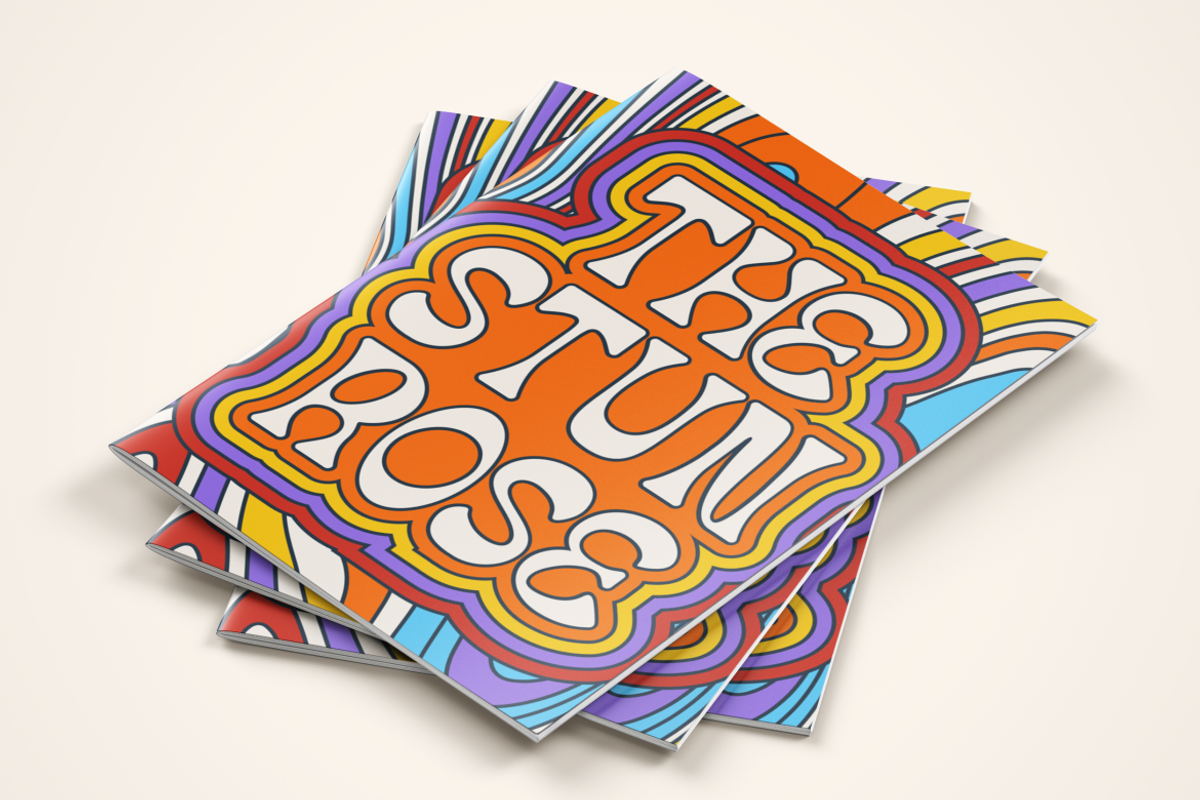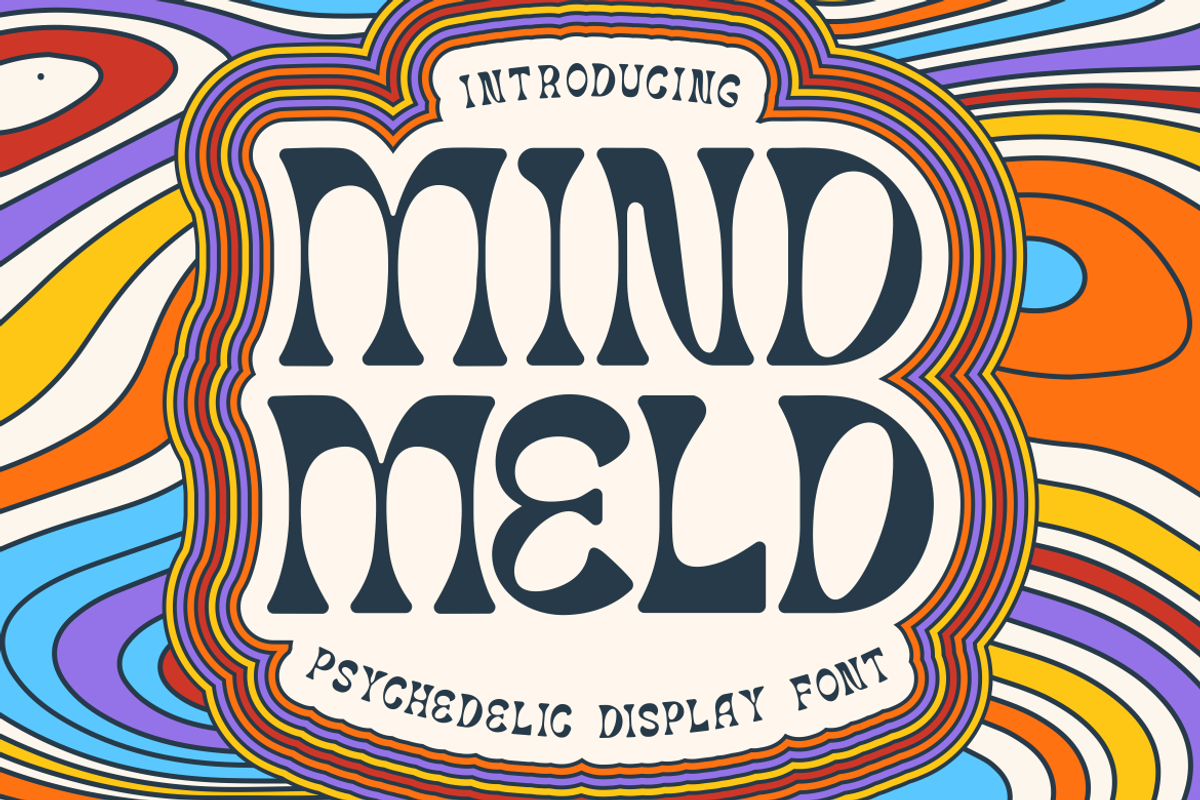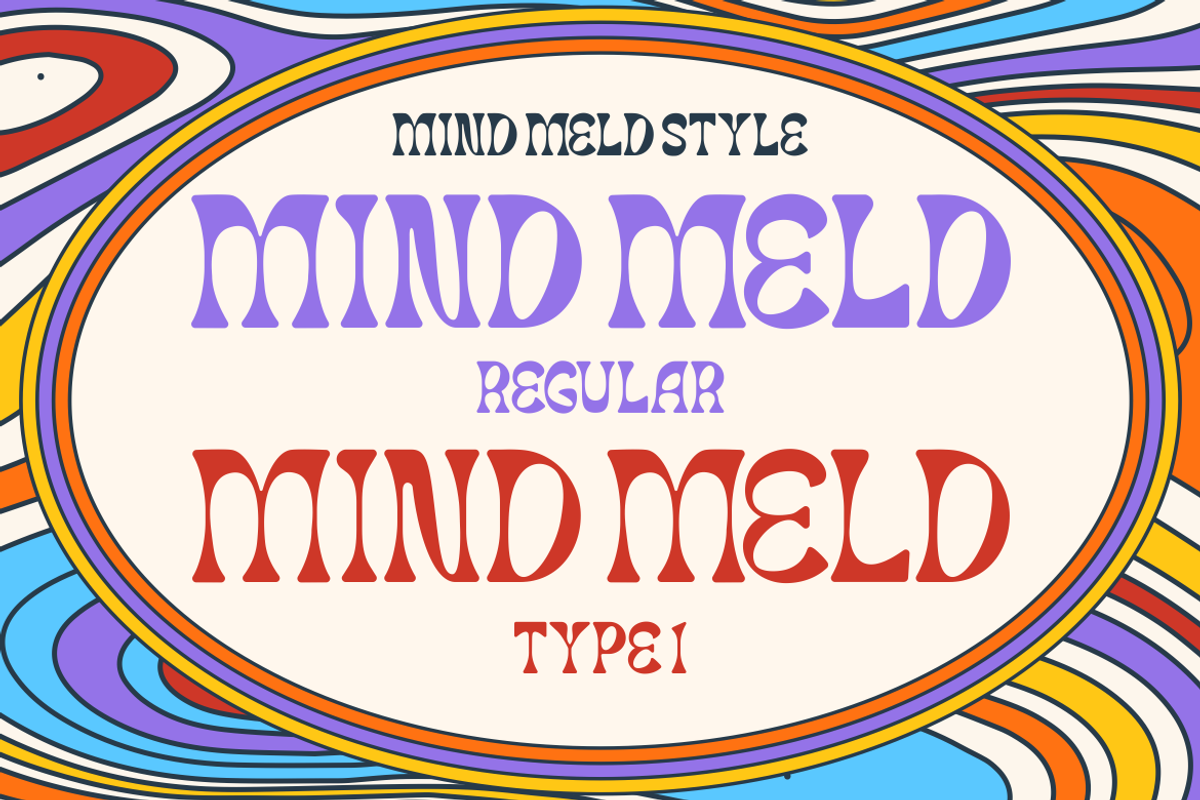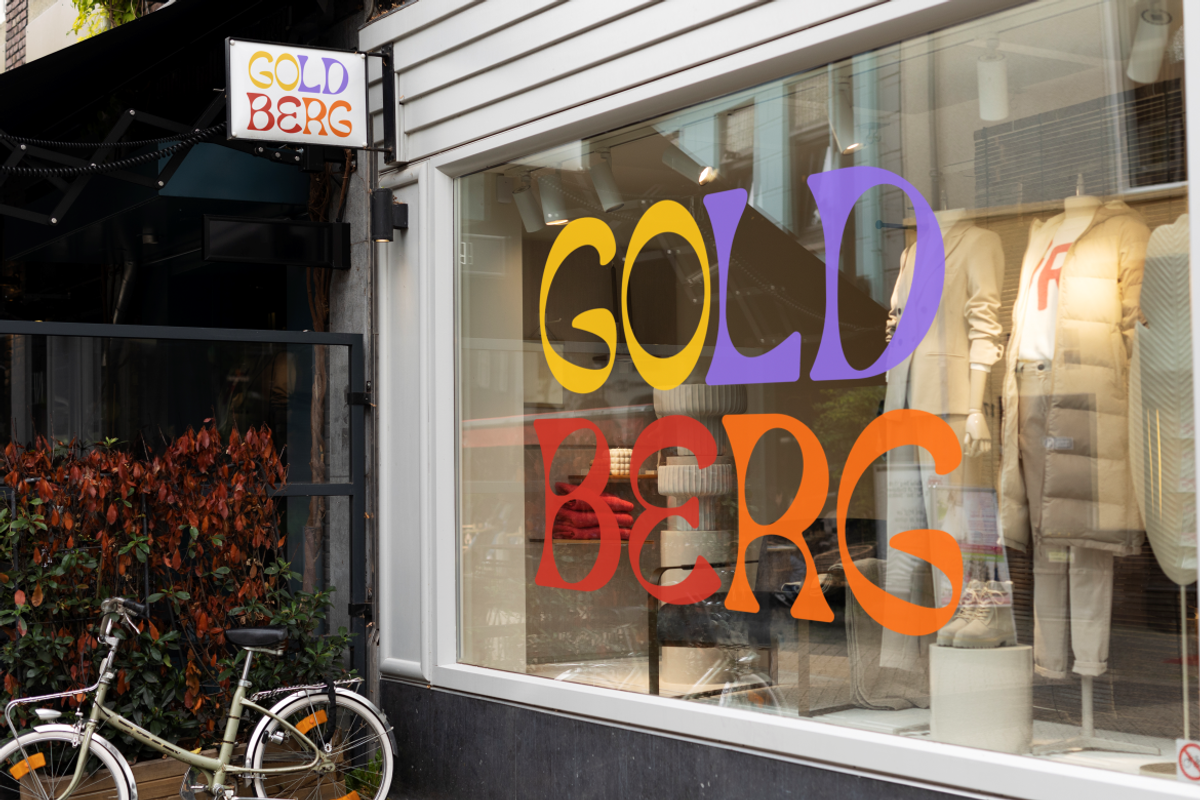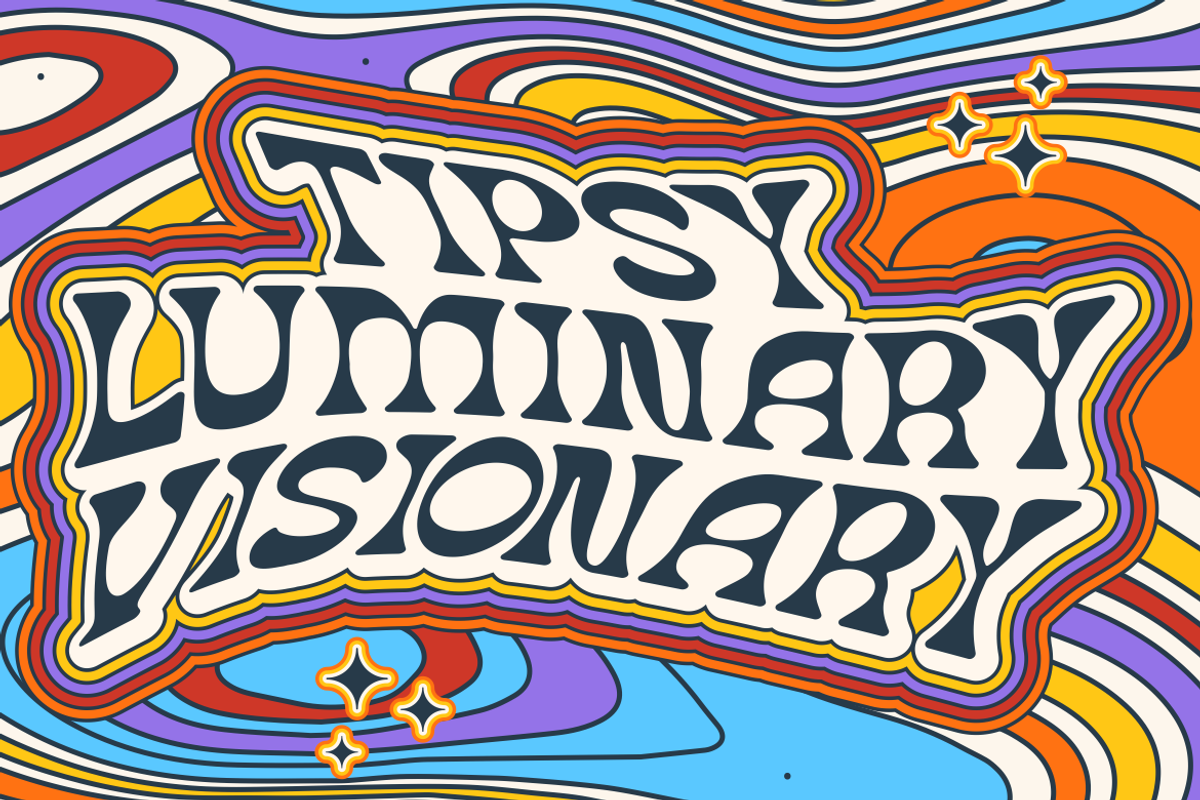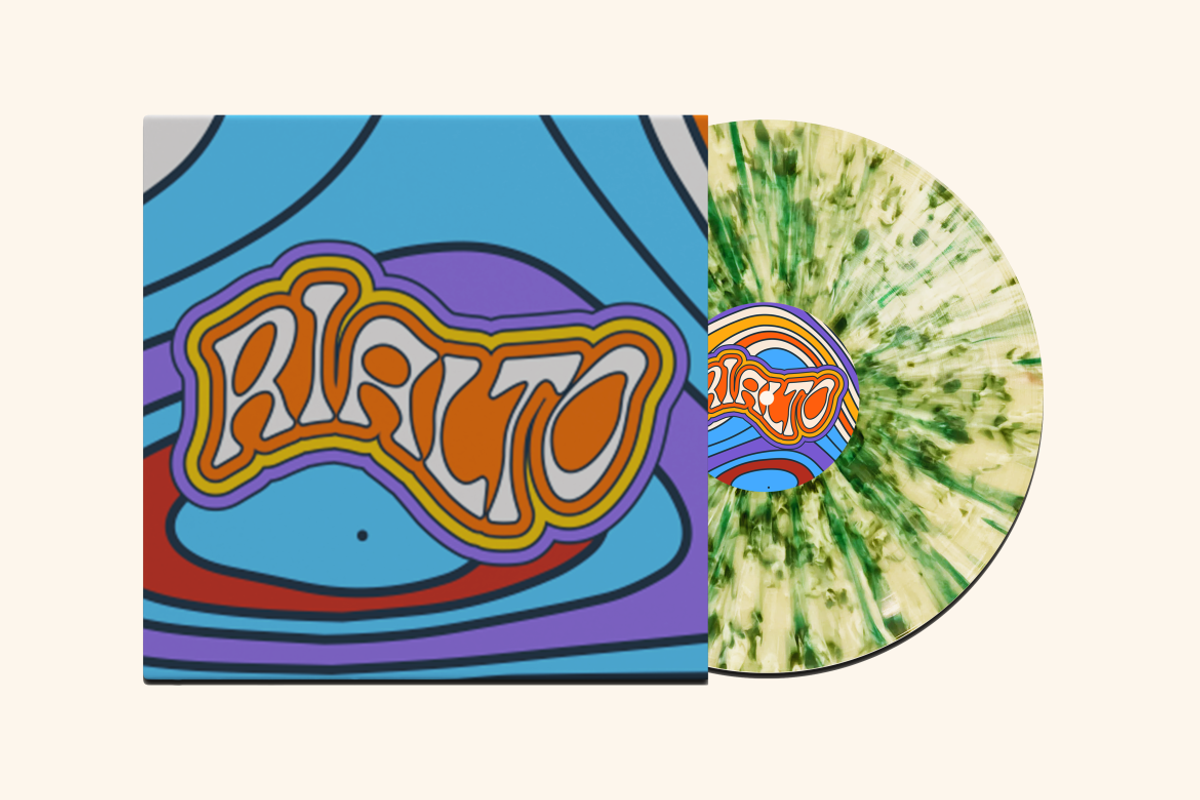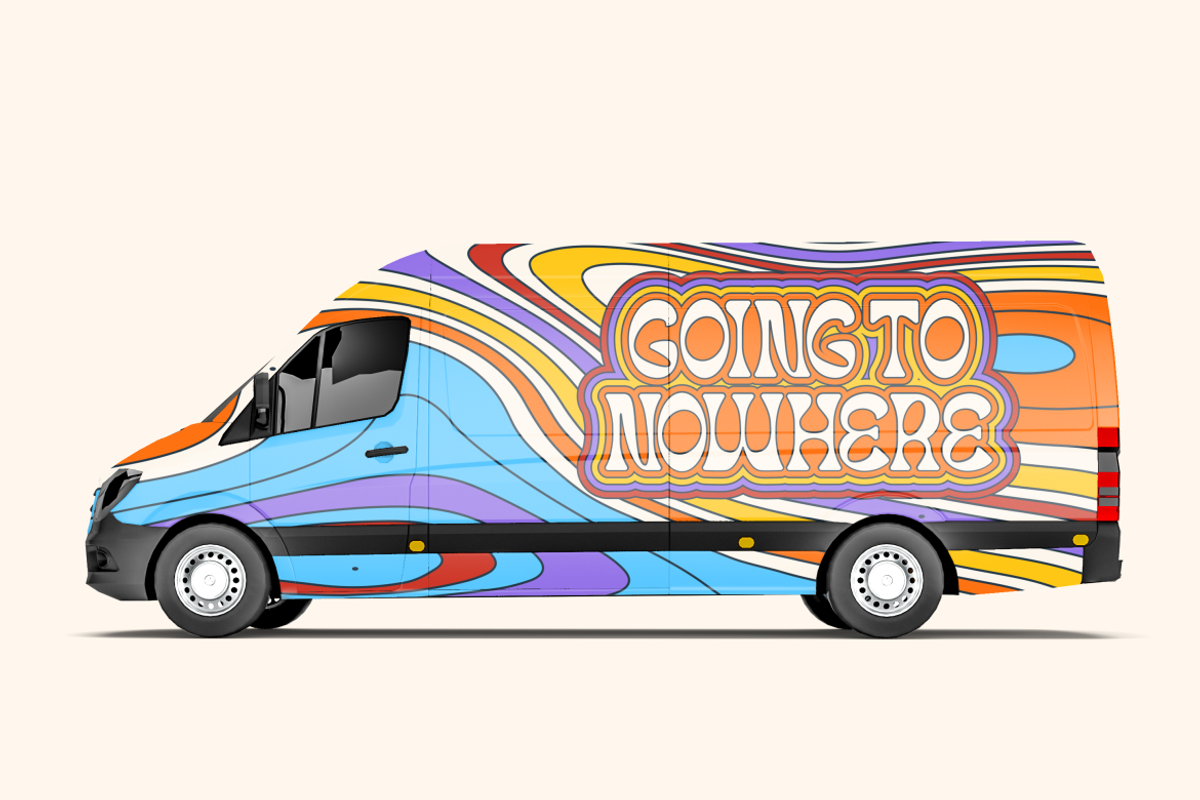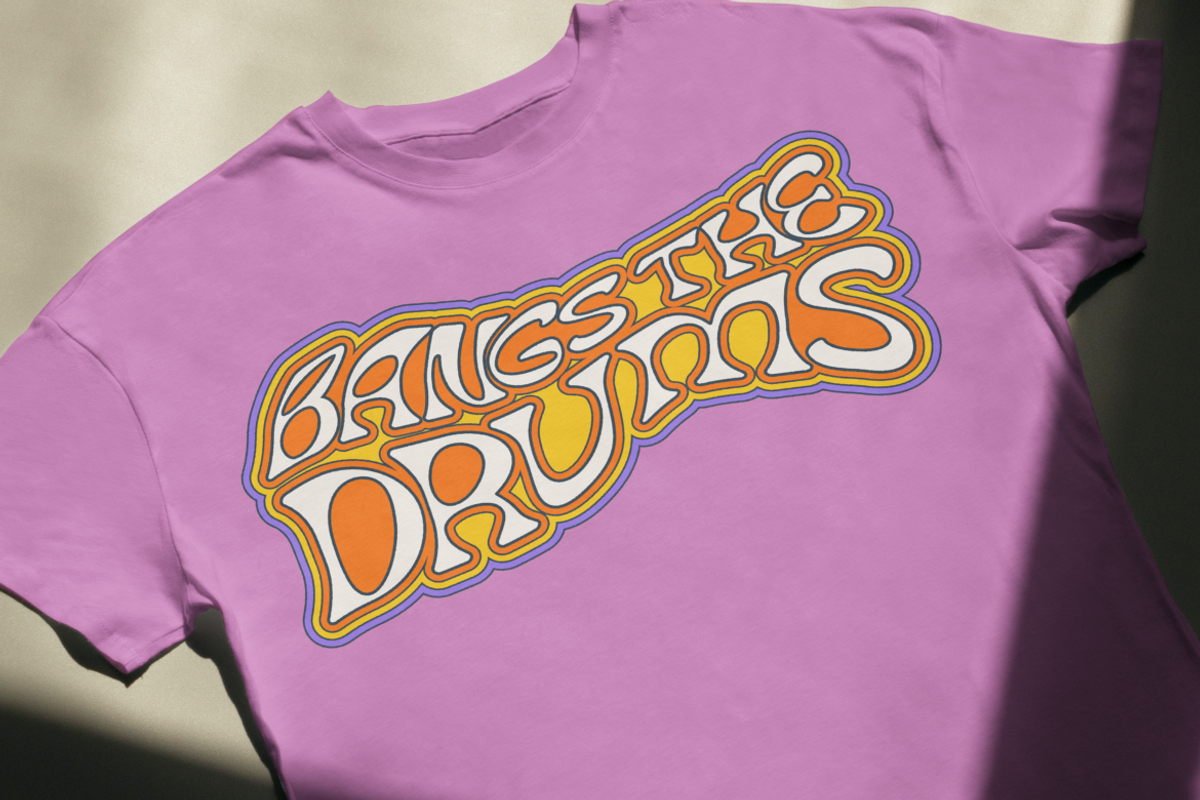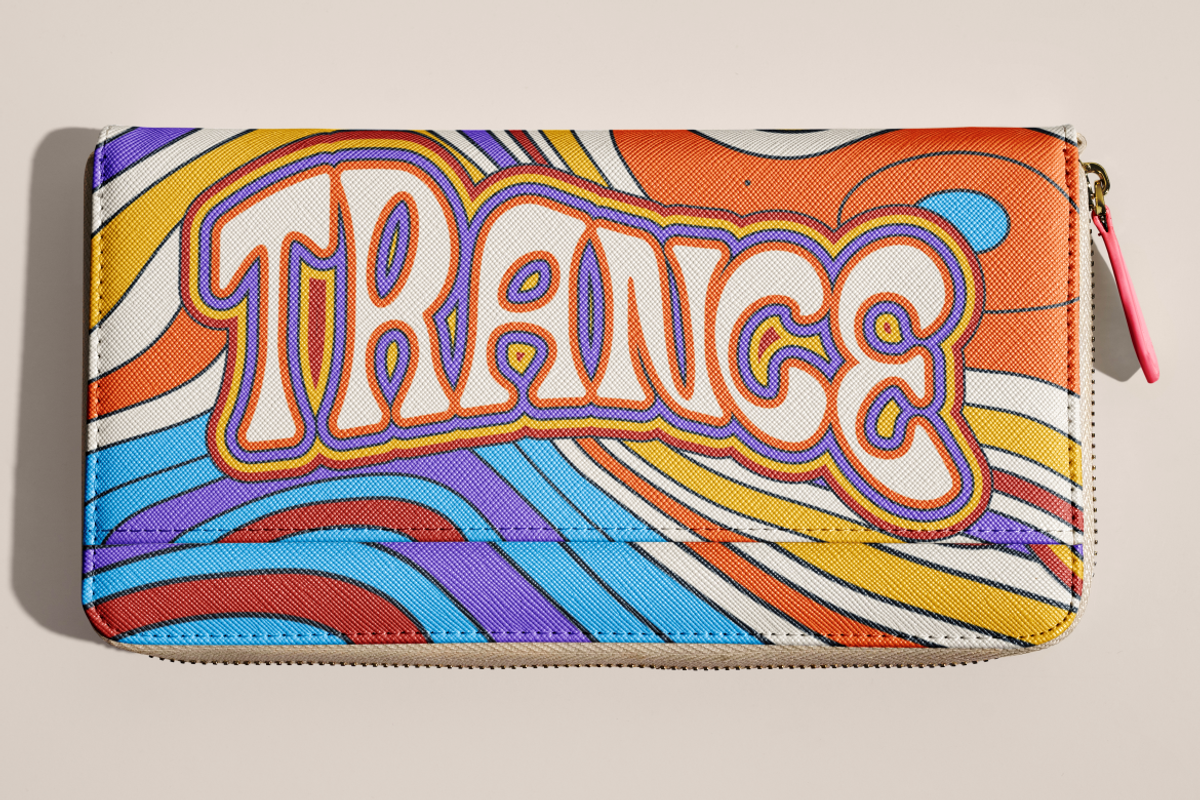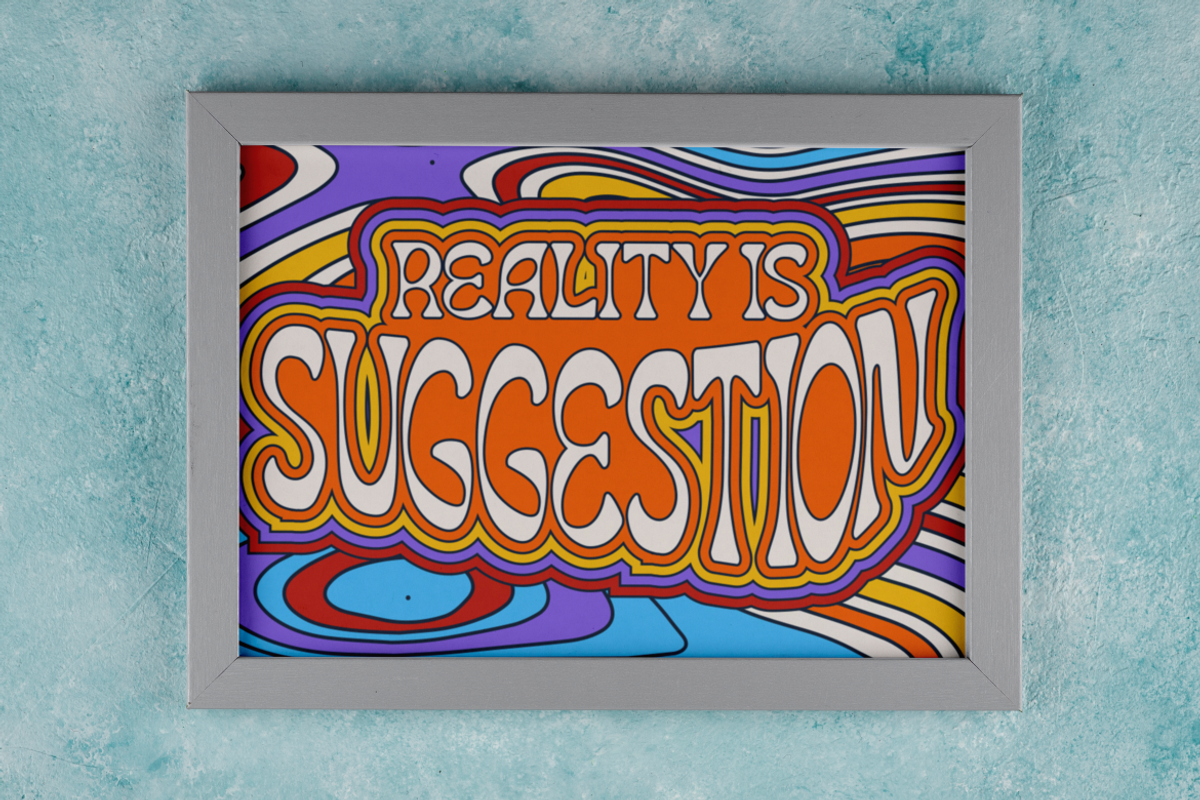
Mind Meld - Psychedelic Display Font
Introducing Mind Meld - Psychedelic Display Font, a throwback to the groovy vibes of the 80s, perfect for capturing the essence of retro design. This font is a visual symphony that speaks to the soul of vintage enthusiasts and modern-day creatives alike. With its bold and fluid lines, Mind Meld is not just a font; it’s a statement piece that demands attention. Whether you’re crafting a logo that stands out, designing an invitation that sets the tone for an unforgettable event, or creating a poster that turns heads, this font infuses your work with an authentic psychedelic flair.
Mind Meld is versatile and dynamic, making it an ideal choice for a wide range of applications. Its unique character shines in branding projects, packaging designs, and even children’s books, where its playful yet sophisticated style can bring any text to life. The font’s compatibility with both digital and print media ensures that your message is not only seen but felt. When it comes to making a lasting impression, Mind Meld is your go-to font for anything that needs a touch of retro, from business cards to stickers, and magazine layouts to various other designs that resonate with the font’s theme.